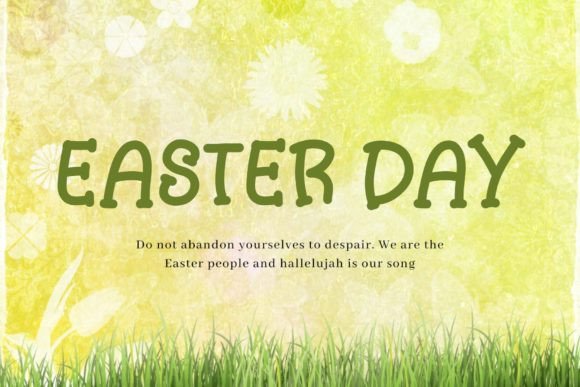
Easter Smile Font: The Perfect Addition to Your Easter-Themed Crafts
As Easter approaches, crafters, designers, and marketers are on the lookout for the perfect font to add a touch of festivity to their creations. If you’re looking for a font that embodies the spirit of Easter, look no further than the Easter Smile Font. This cute and friendly display font is designed to bring a smile to your face and is suitable for a wide range of Easter-themed projects.
What is Easter Smile Font?
Easter Smile Font is a display font specifically designed for Easter-themed crafts, cartoons, banners, posters, comics, and more. Its playful and cheerful design makes it perfect for adding a personal touch to your Easter creations. The font is easy to read and has a friendly feel to it, making it suitable for a wide range of audiences.
Features of Easter Smile Font
The Easter Smile Font comes with a range of features that make it an excellent choice for your Easter-themed projects. Some of its key features include:
- Cute and Friendly Design: The Easter Smile Font has a playful and cheerful design that is sure to bring a smile to your face.
- Easter-Themed: The font is specifically designed for Easter-themed projects, making it perfect for crafts, cartoons, banners, posters, and more.
- Display Font: The Easter Smile Font is a display font, making it perfect for headlines, titles, and other display text.
- Easily Readable: The font is easy to read, even at small sizes, making it suitable for a wide range of applications.
Uses of Easter Smile Font
The Easter Smile Font is a versatile font that can be used for a wide range of Easter-themed projects. Some of the ways you can use this font include:
- Easter Crafts: Add a personal touch to your Easter crafts, such as Easter egg decorations, Easter baskets, and more.
- Easter Cartoons: Use the Easter Smile Font to add a playful touch to your Easter cartoons and comics.
- Easter Banners: Create eye-catching Easter banners with the Easter Smile Font.
- Easter Posters: Design festive Easter posters with the Easter Smile Font.
- Easter Marketing Materials: Use the Easter Smile Font to add a touch of festivity to your Easter marketing materials, such as Easter-themed social media graphics and email newsletters.
Why Choose Easter Smile Font?
There are many fonts to choose from, but the Easter Smile Font stands out for several reasons. Here are some reasons why you should choose the Easter Smile Font:
- Unique Design: The Easter Smile Font has a unique design that is sure to set your Easter-themed projects apart from the rest.
- Easter-Themed: The font is specifically designed for Easter-themed projects, making it a great choice for anyone looking for a font that embodies the spirit of Easter.
- Easily Readable: The font is easy to read, even at small sizes, making it suitable for a wide range of applications.
- Versatile: The Easter Smile Font can be used for a wide range of Easter-themed projects, from crafts to marketing materials.
Tips for Using Easter Smile Font
Here are some tips for using the Easter Smile Font:
- Use it for Headlines: The Easter Smile Font is perfect for headlines and titles, so use it to add a touch of festivity to your Easter-themed projects.
- Experiment with Colors: The Easter Smile Font looks great in a range of colors, so experiment with different colors to find the one that works best for your project.
- Pair it with Other Fonts: The Easter Smile Font can be paired with other fonts to create a unique and eye-catching design.
- Use it for Easter-themed Marketing Materials: Use the Easter Smile Font to add a touch of festivity to your Easter-themed marketing materials, such as Easter-themed social media graphics and email newsletters.
The Easter Smile Font is a cute and friendly display font that is perfect for adding a touch of festivity to your Easter-themed projects. With its unique design, Easter-themed style, and easily readable text, this font is sure to bring a smile to your face. Whether you’re a crafter, designer, or marketer, the Easter Smile Font is a great choice for anyone looking for a font that embodies the spirit of Easter.
Q: What is the Easter Smile Font?
A: The Easter Smile Font is a cute and friendly display font specifically designed for Easter-themed crafts, cartoons, banners, posters, comics, and more.
Q: What are the features of the Easter Smile Font?
A: The Easter Smile Font has a range of features, including a cute and friendly design, Easter-themed style, display font, and easily readable text.
Q: How can I use the Easter Smile Font?
A: The Easter Smile Font can be used for a wide range of Easter-themed projects, including crafts, cartoons, banners, posters, and marketing materials.